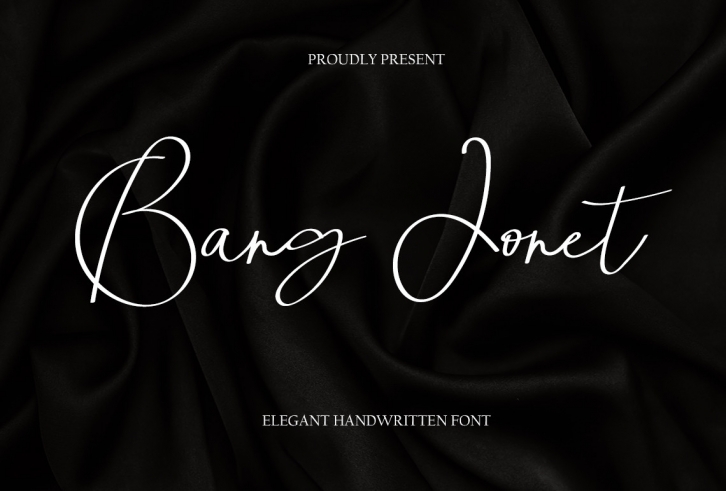
Bang Jonet is a fashionable and slim handwritten font that is made with great care in order to produce the expected outcomes. It has a classy, elegant and modern look that can be used for logos, branding, invitations, stationery, wedding designs, and more. This font is PUA encoded which means you can access all of the amazing glyphs and ligatures with ease!